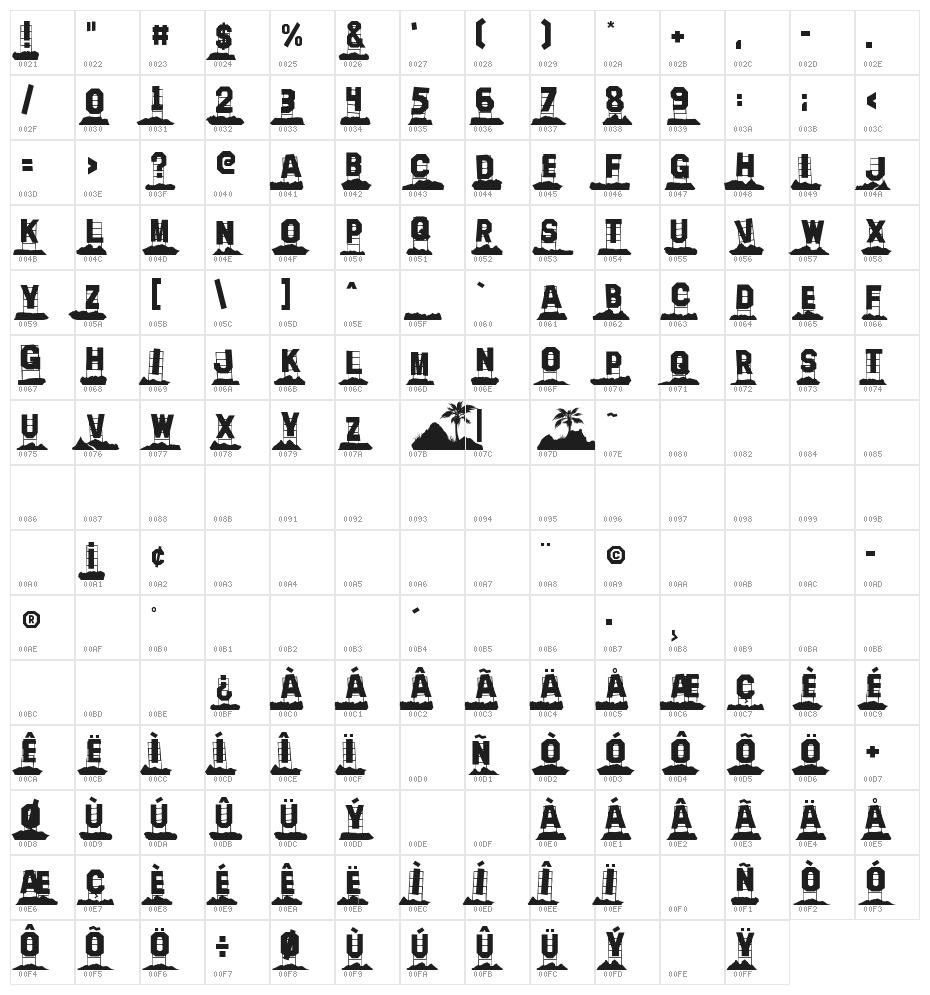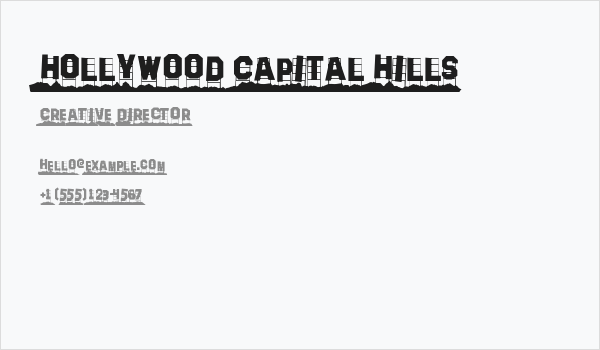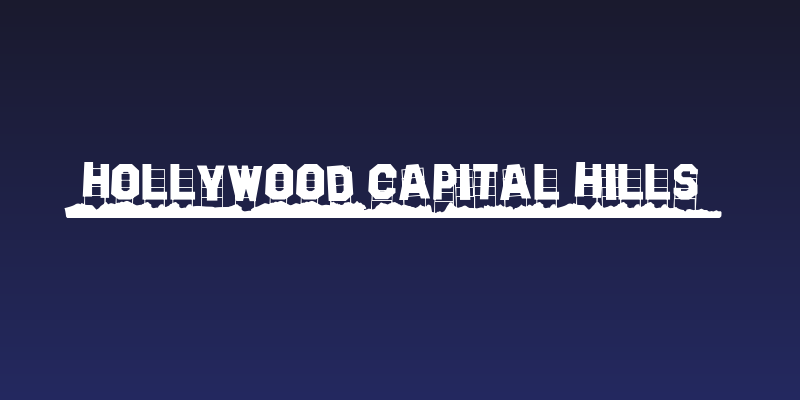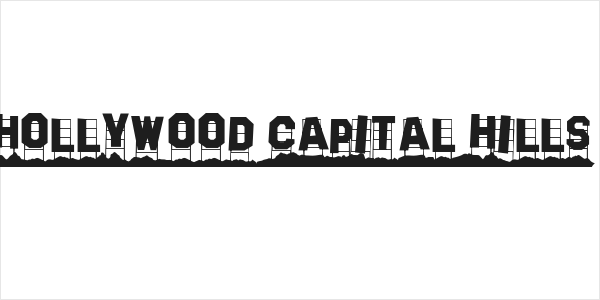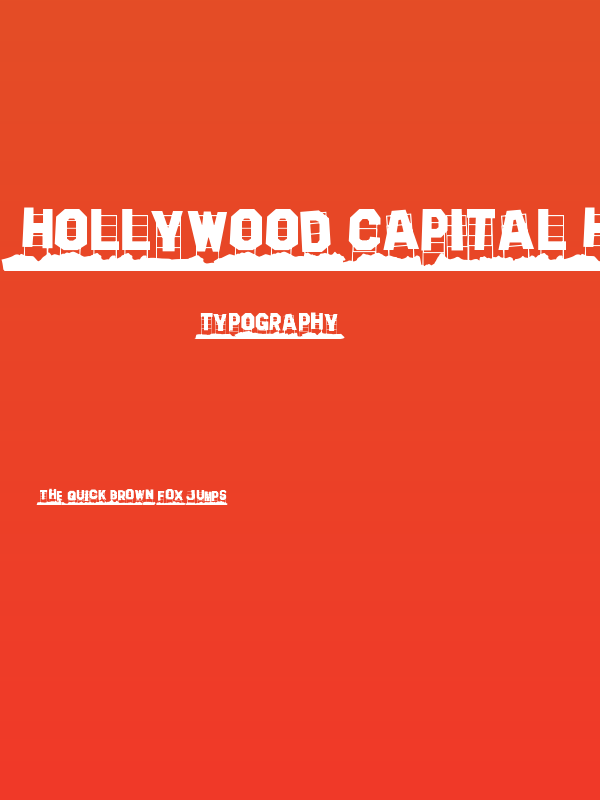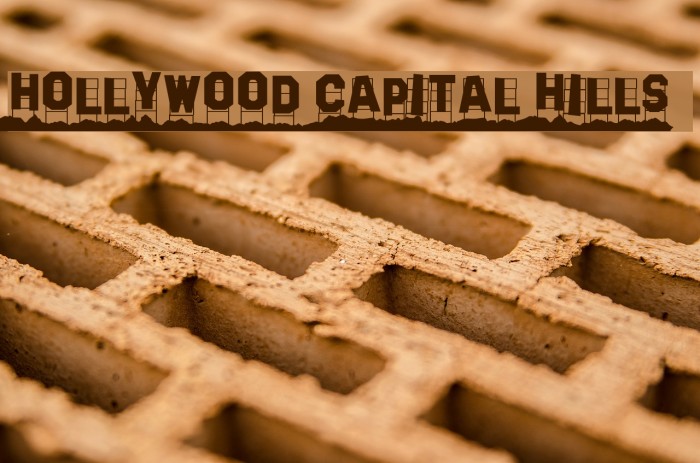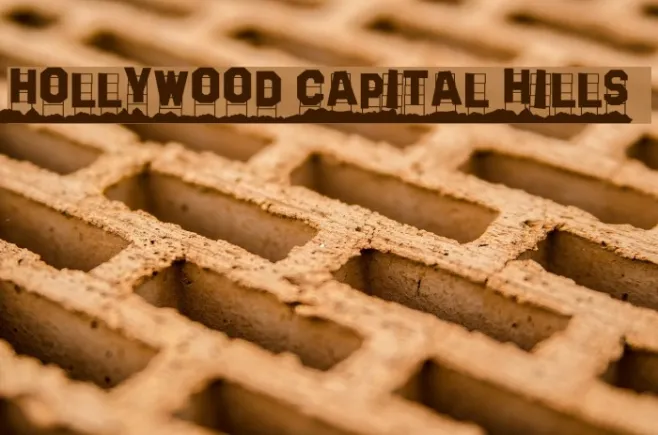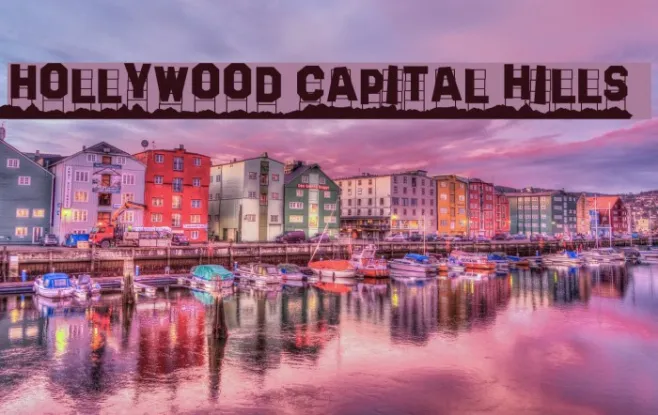
Hollywood Capital Hills Font
Hollywood Capital Hills Description
This font features a bold and striking design that mimics the iconic Hollywood sign, with each character appearing as if it is mounted on a hill. The letters are uppercase and have a strong, geometric structure with sharp angles and clean lines. The font includes a full set of uppercase letters, numbers, and a variety of special characters. The unique style of this font makes it ideal for projects that require a dramatic and eye-catching headline or title. The boldness of the characters ensures high visibility and impact, making it suitable for posters, banners, and other promotional materials.
| Proposed Projects | Ideal for movie posters, event banners, themed party invitations, and promotional materials. |